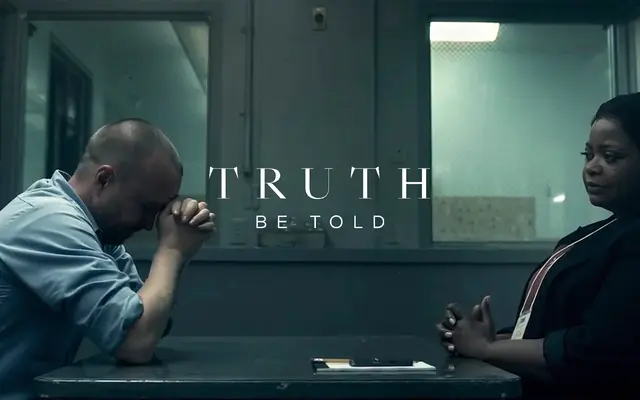
SangBleu
Swiss Typefaces · Ian Party
A refined transitional serif by Ian Party with Cyrillic support developed by CSTM Fonts, rooted in 18th-century French and Swiss typographic tradition.
Designed by Ian Party at Swiss Typefaces, SangBleu draws on the high-contrast, classical proportions of 18th-century French and Swiss type models. Cyrillic development was handled by Ilya Ruderman and Yury Ostromentsky of CSTM Fonts, with font engineering by Christoph Koeberlin. The family suits editorial, fashion and luxury contexts where historical pedigree and precision of form are required.
SangBleu sits within the transitional serif tradition, drawing on 18th-century French and Swiss type models with refined contrast and classical proportions typical of that genre.